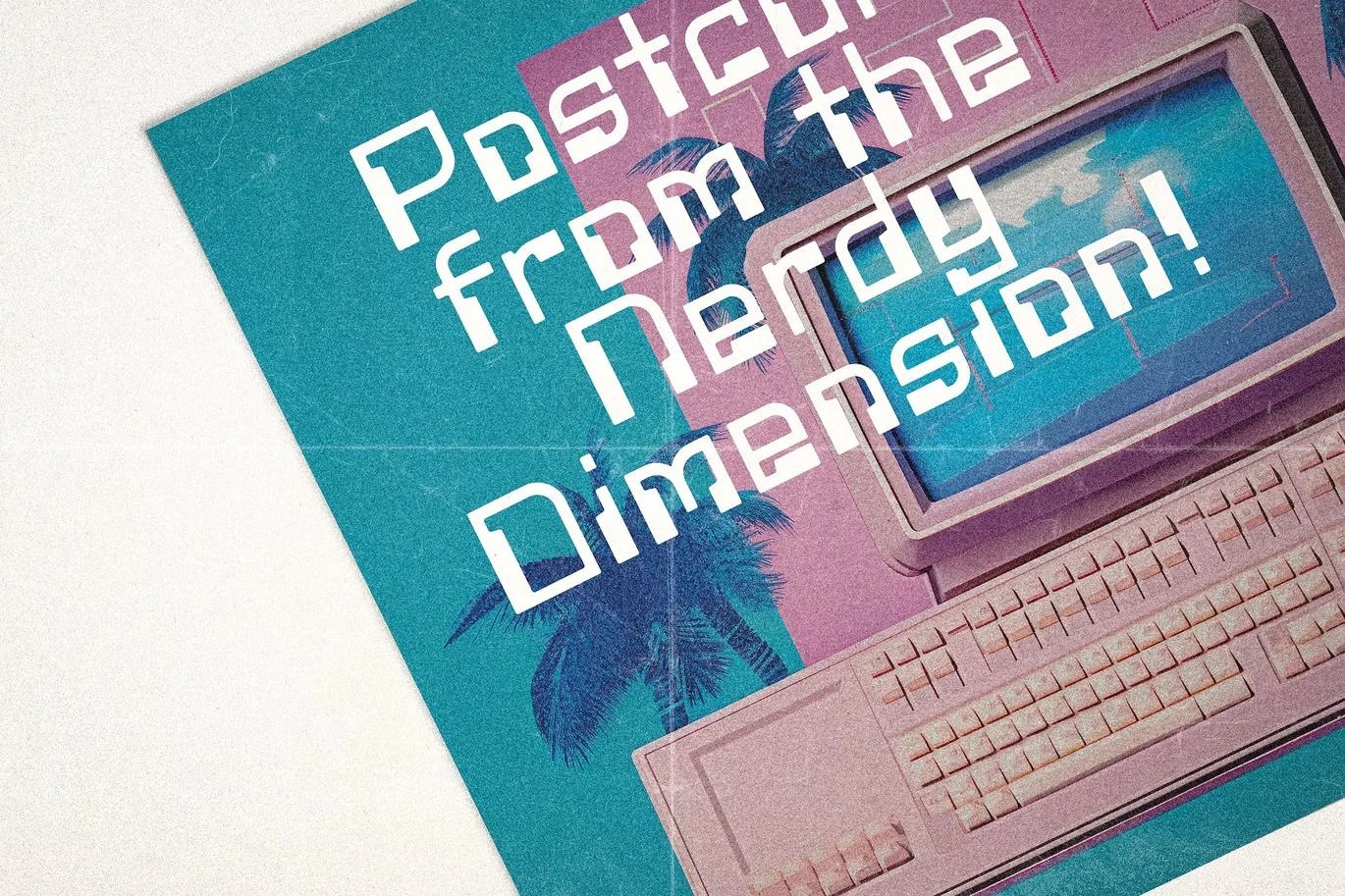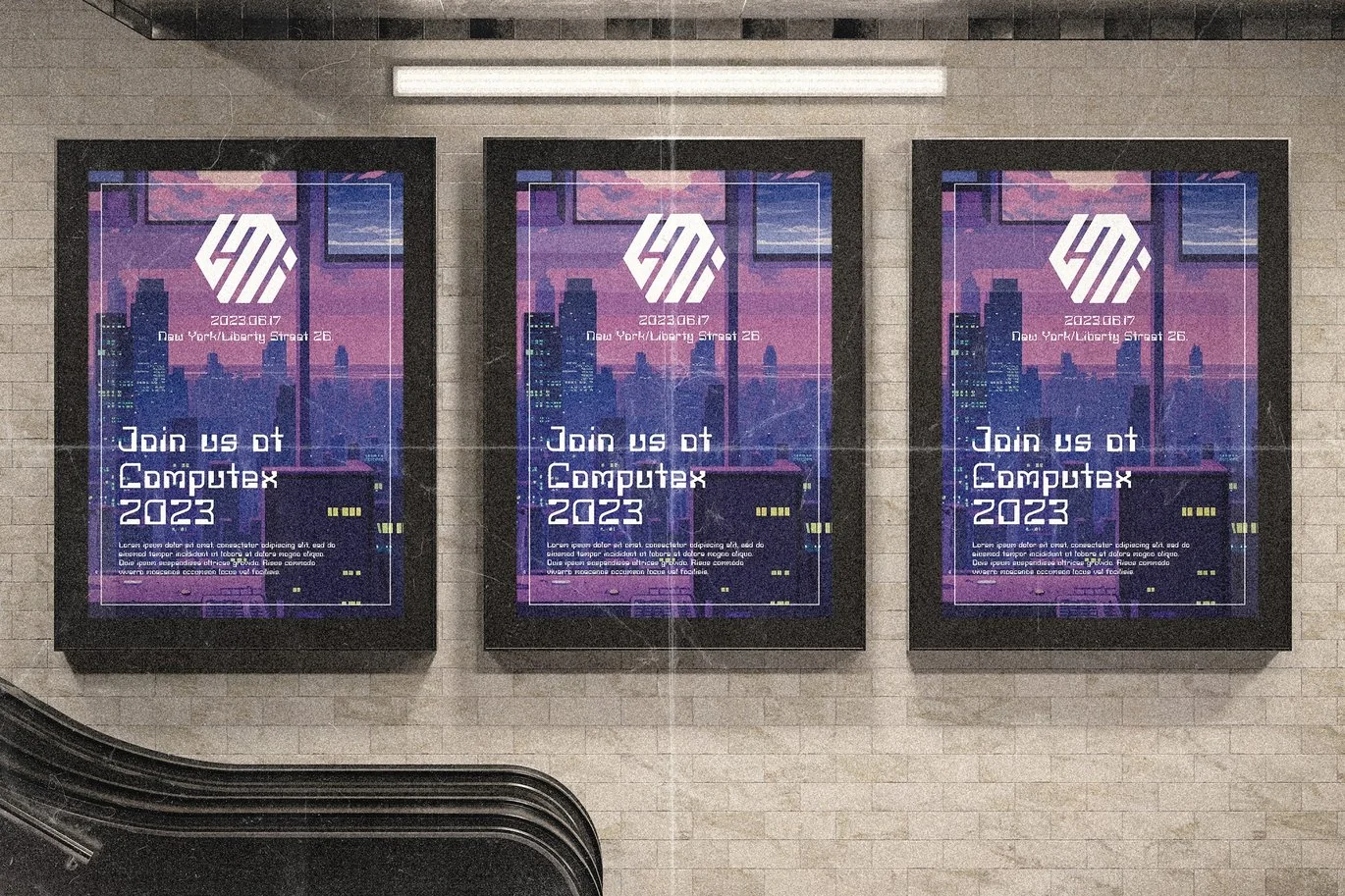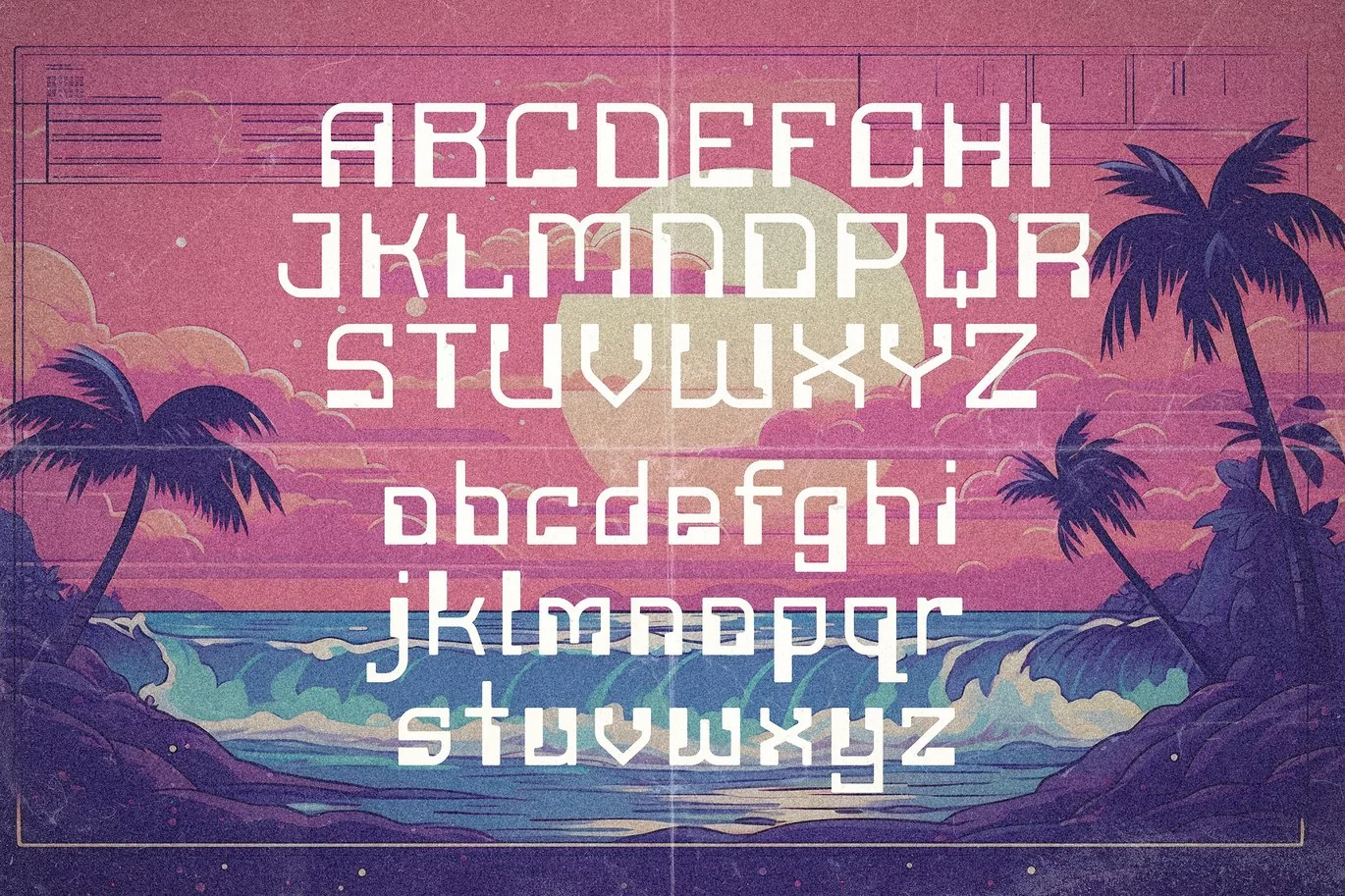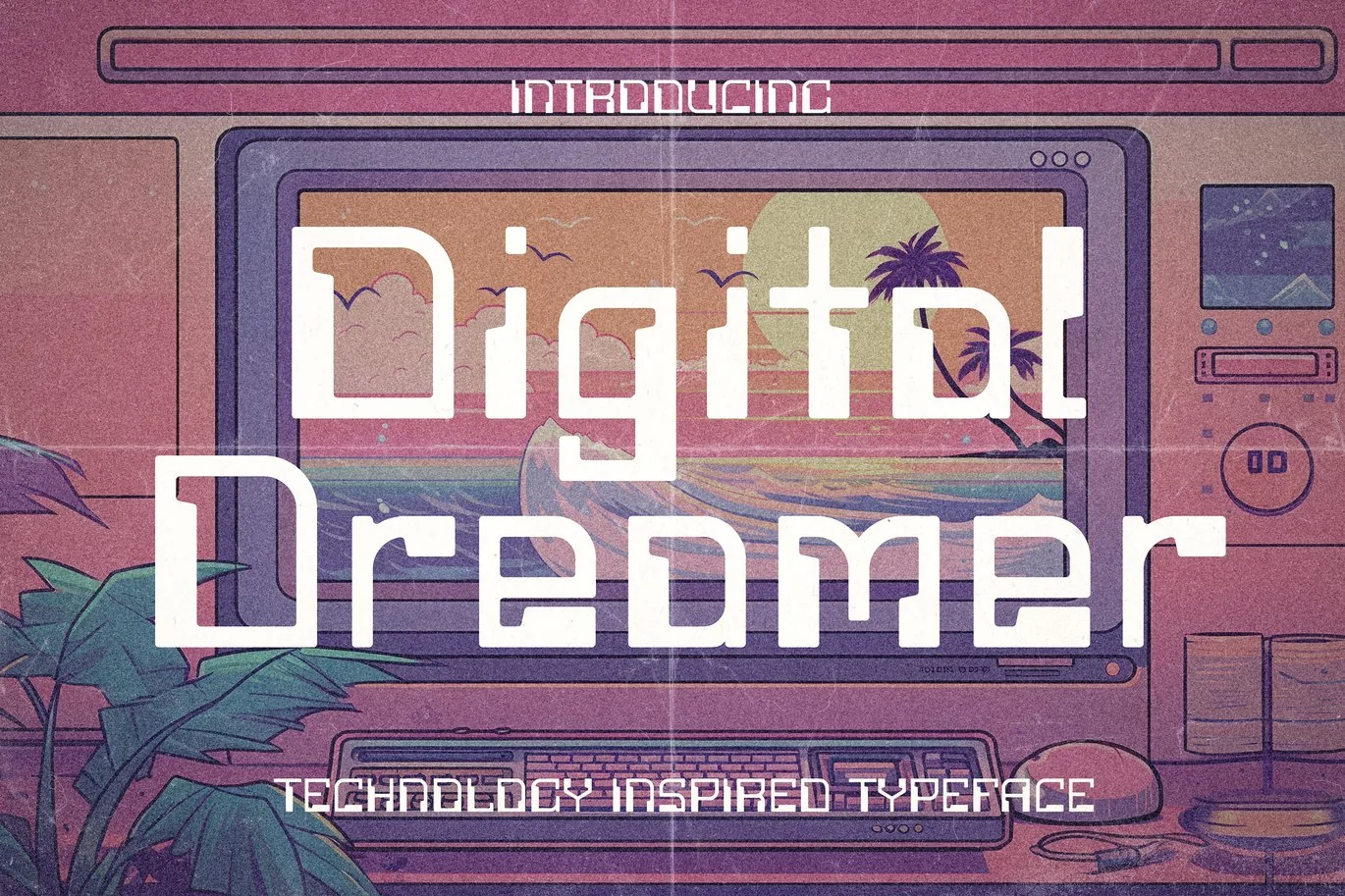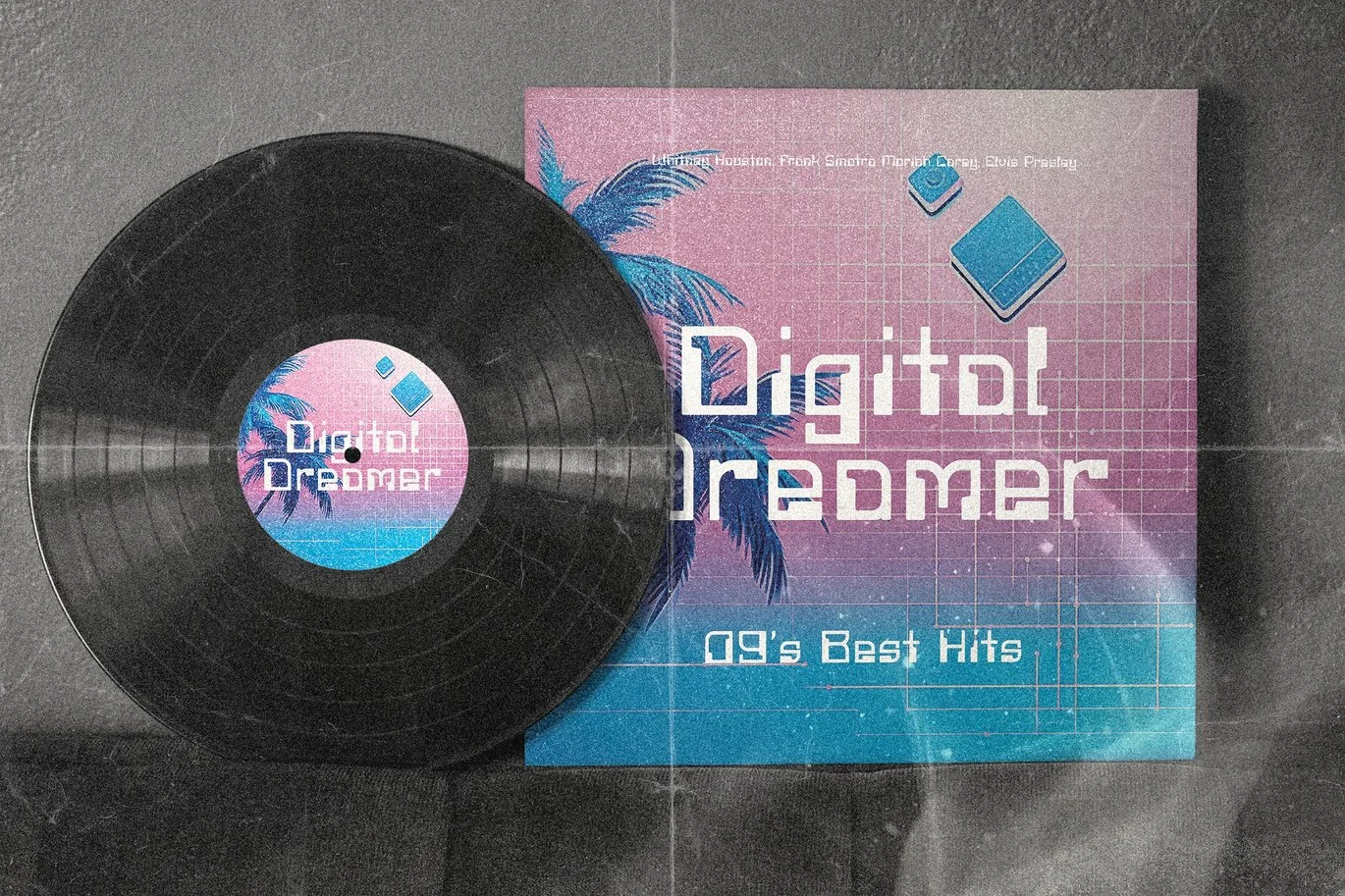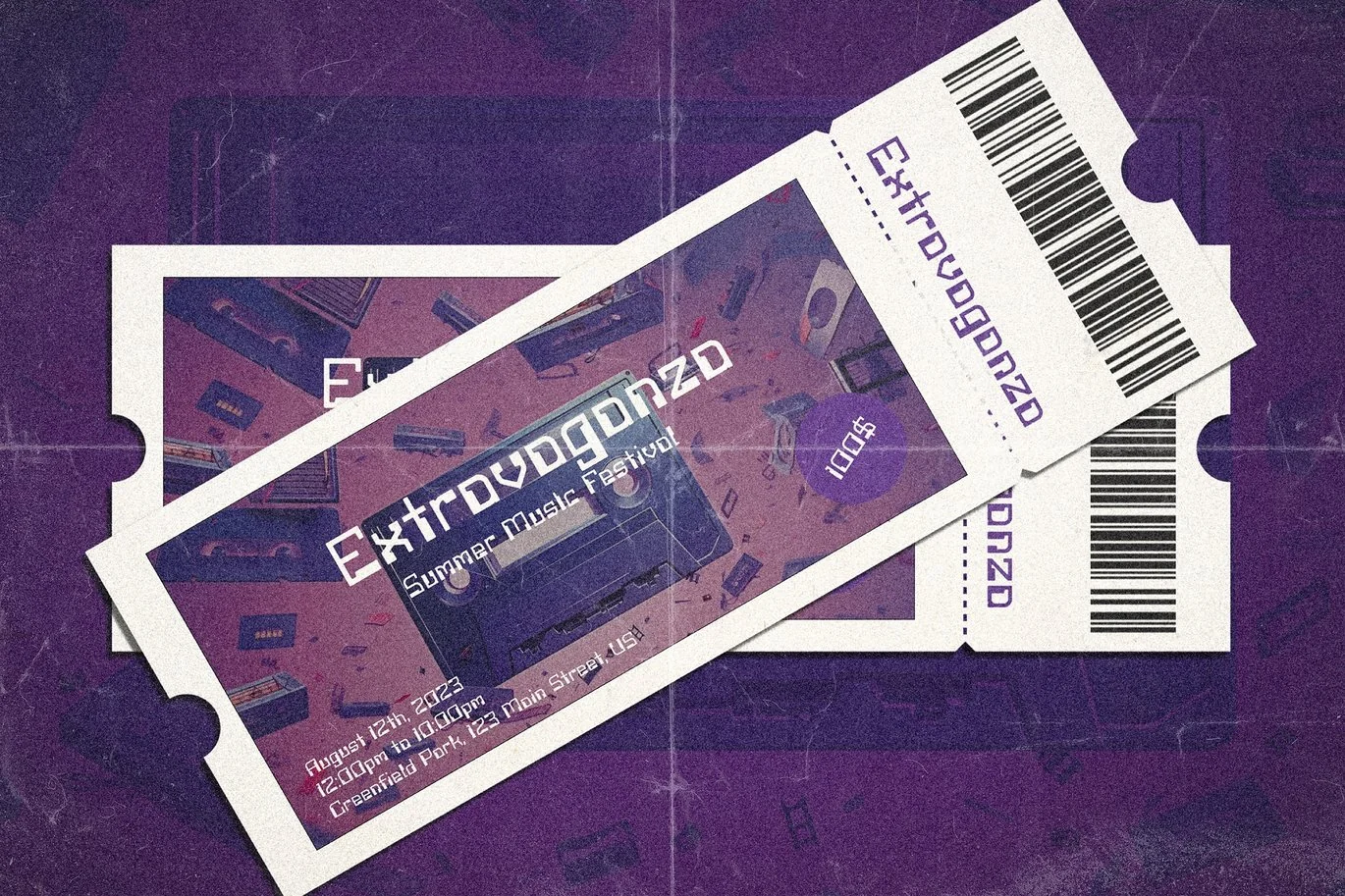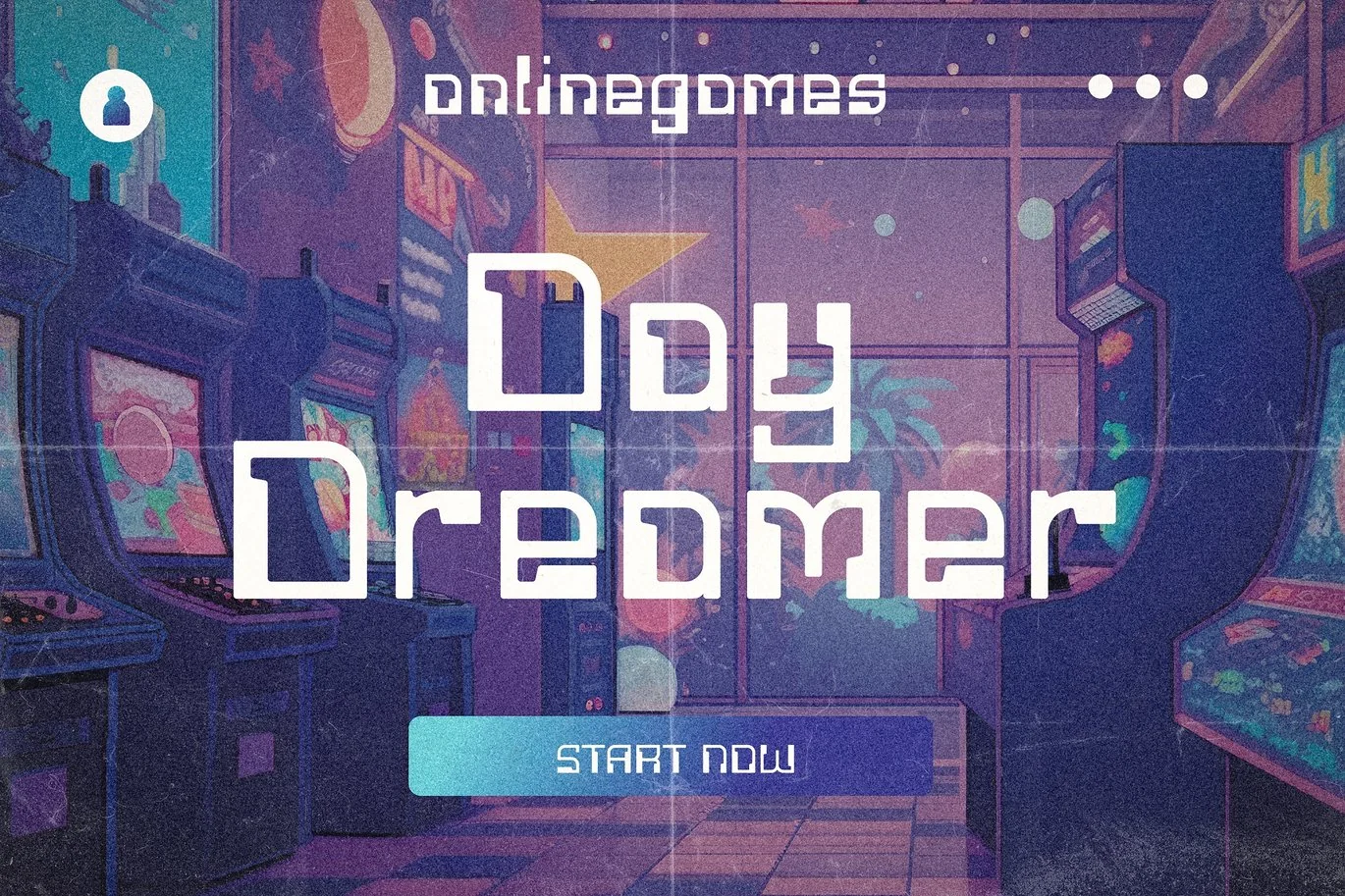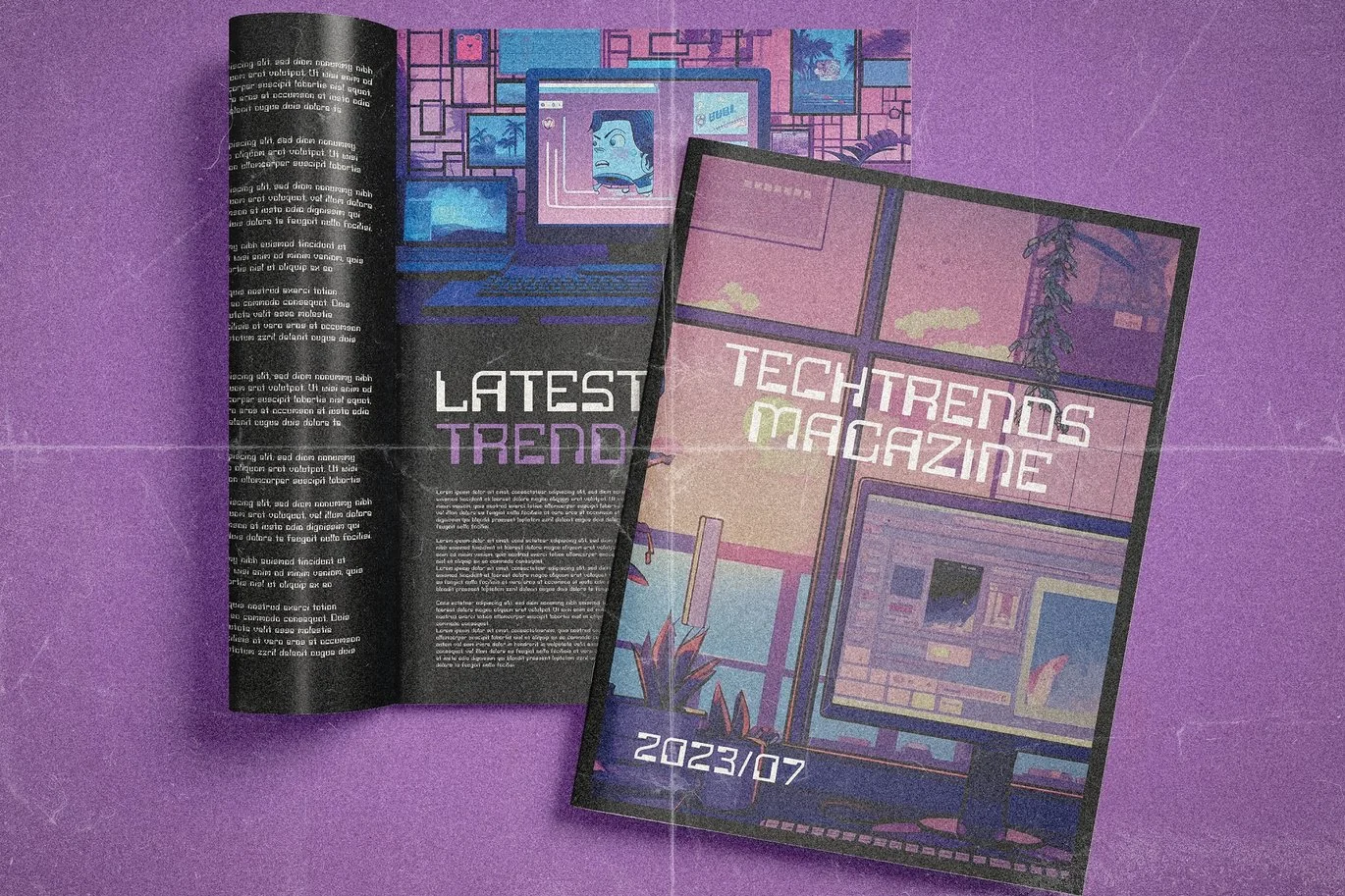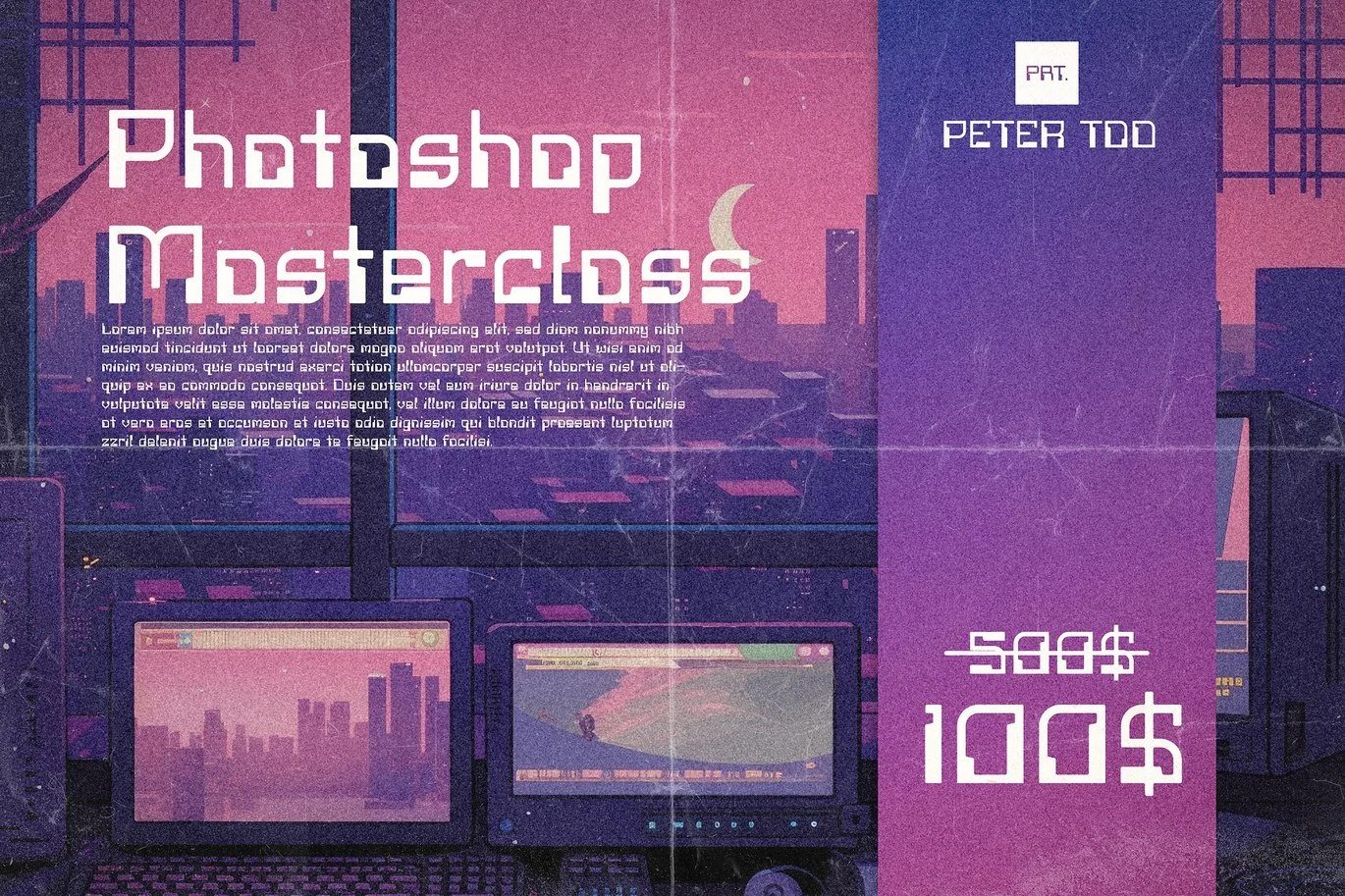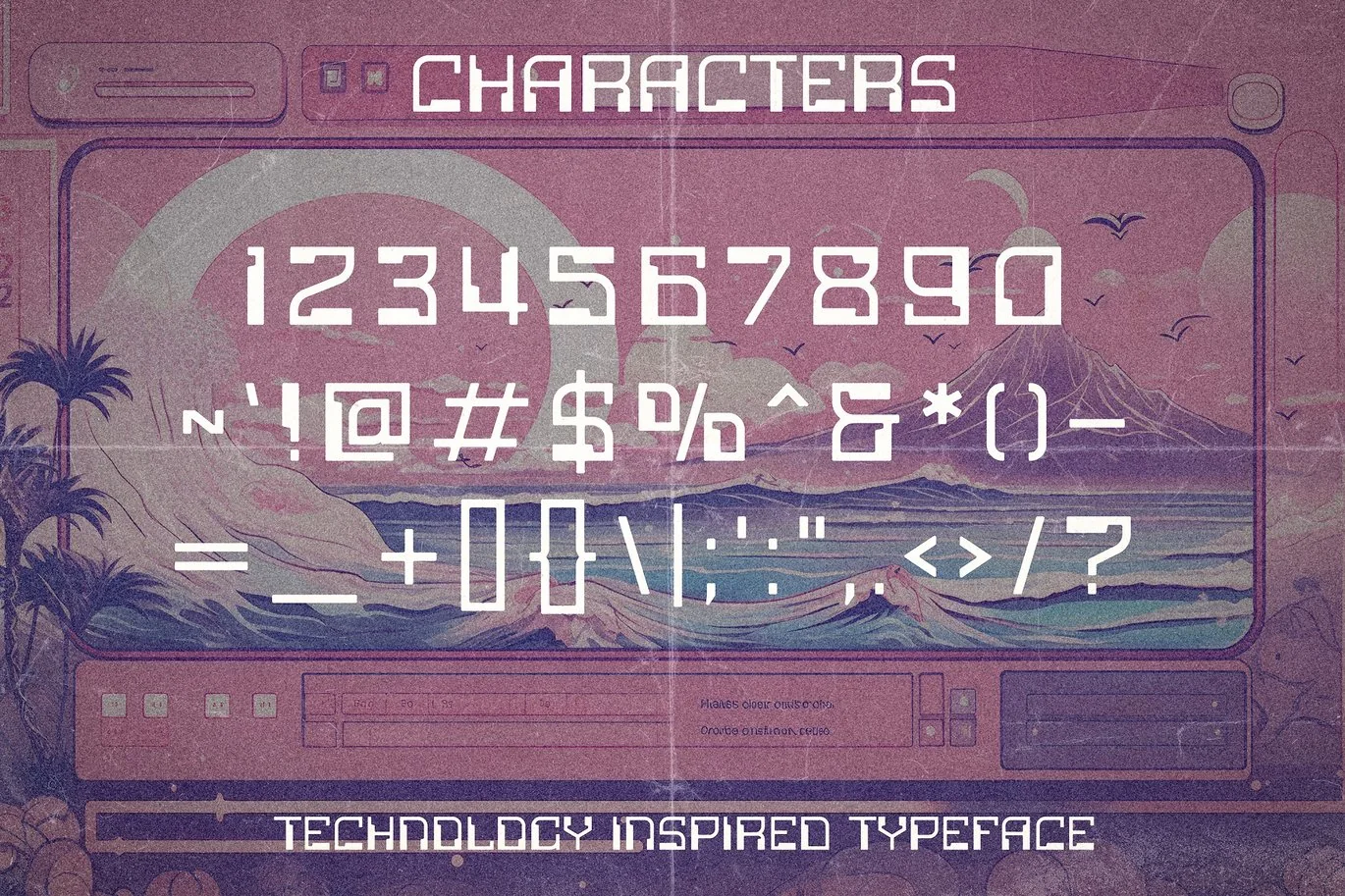
Digital Dreamer – 1980s Computer Typeface
Dive into the neon-lit world of the 1980s with Digital Dreamer! Inspired by the era of arcade games, neon signs, and early computing, this typeface transports you back to a time when digital design was taking its first exciting steps.
With its pixel-perfect precision and retro flair, Digital Dreamer is perfect for capturing the nostalgic essence of the ’80s while adding a modern twist.
Whether you’re designing a throwback poster, a retro-themed app, or simply looking to infuse some vintage charm into your projects, Digital Dreamer is your passport to the vibrant and electrifying era of the 1980s.
Dream big, design bigger with Digital Dreamer!